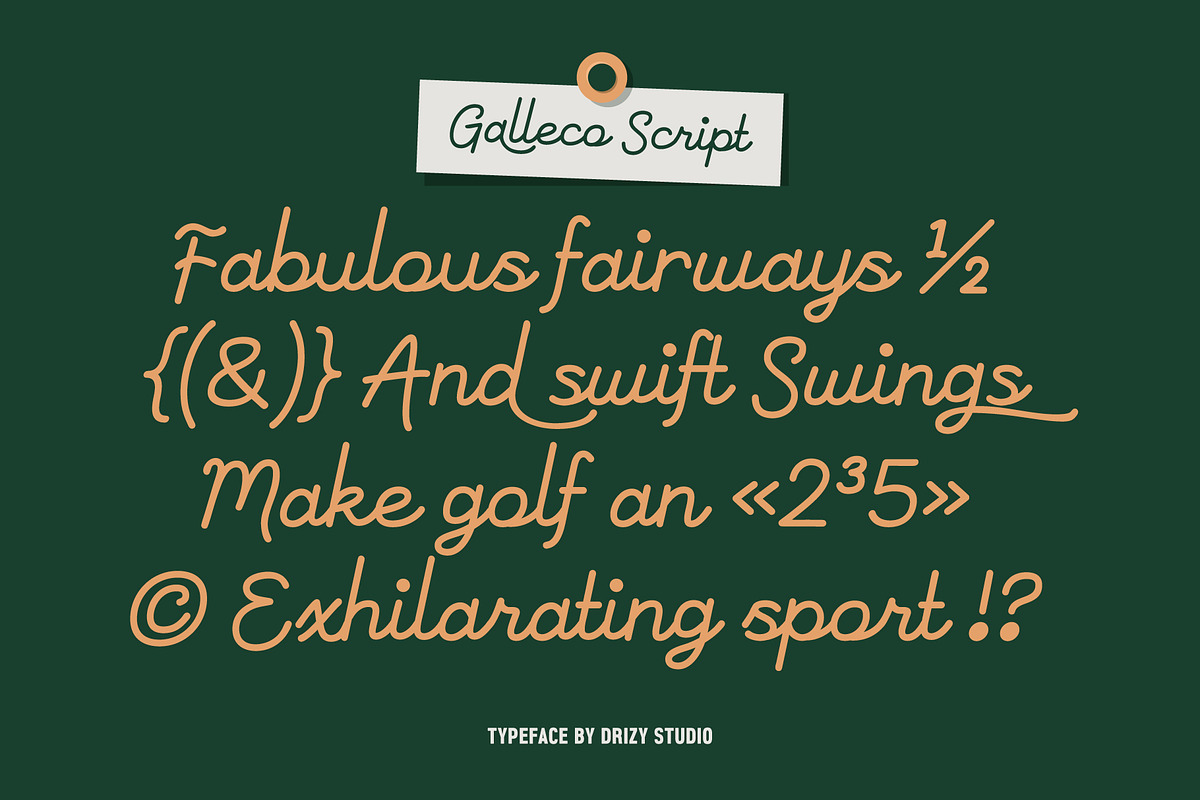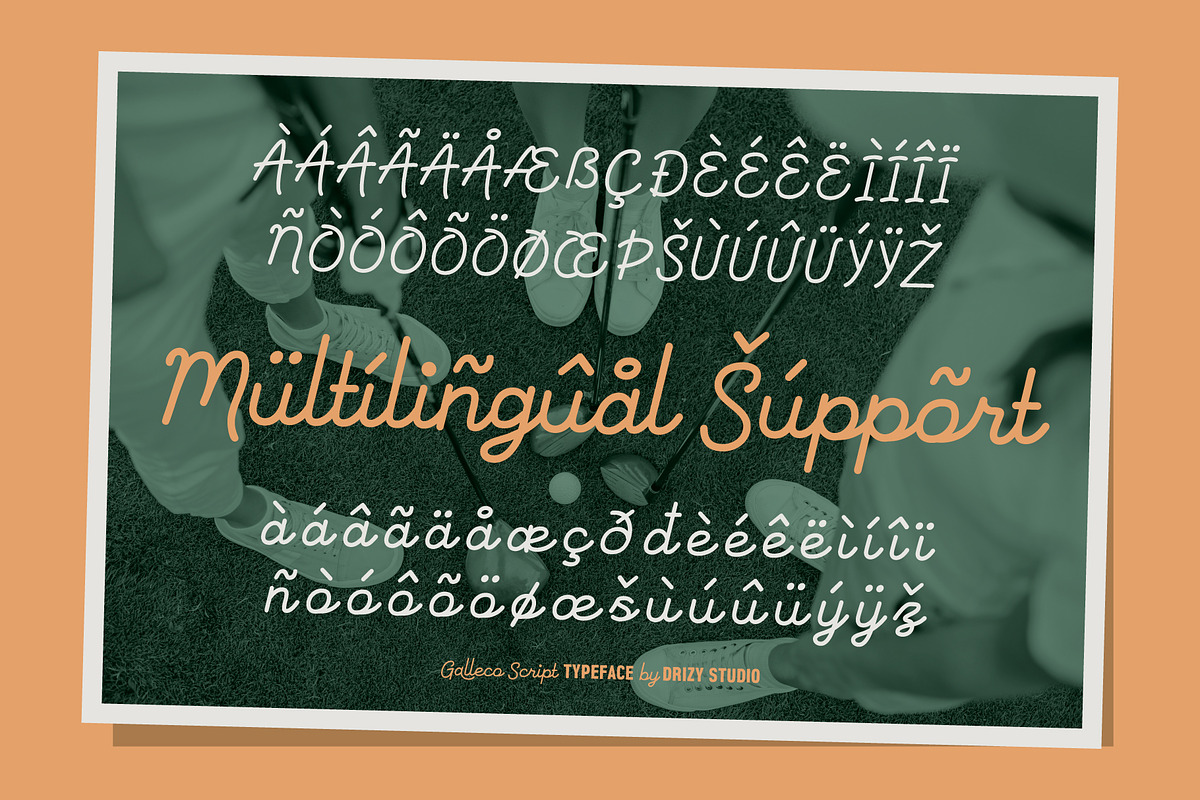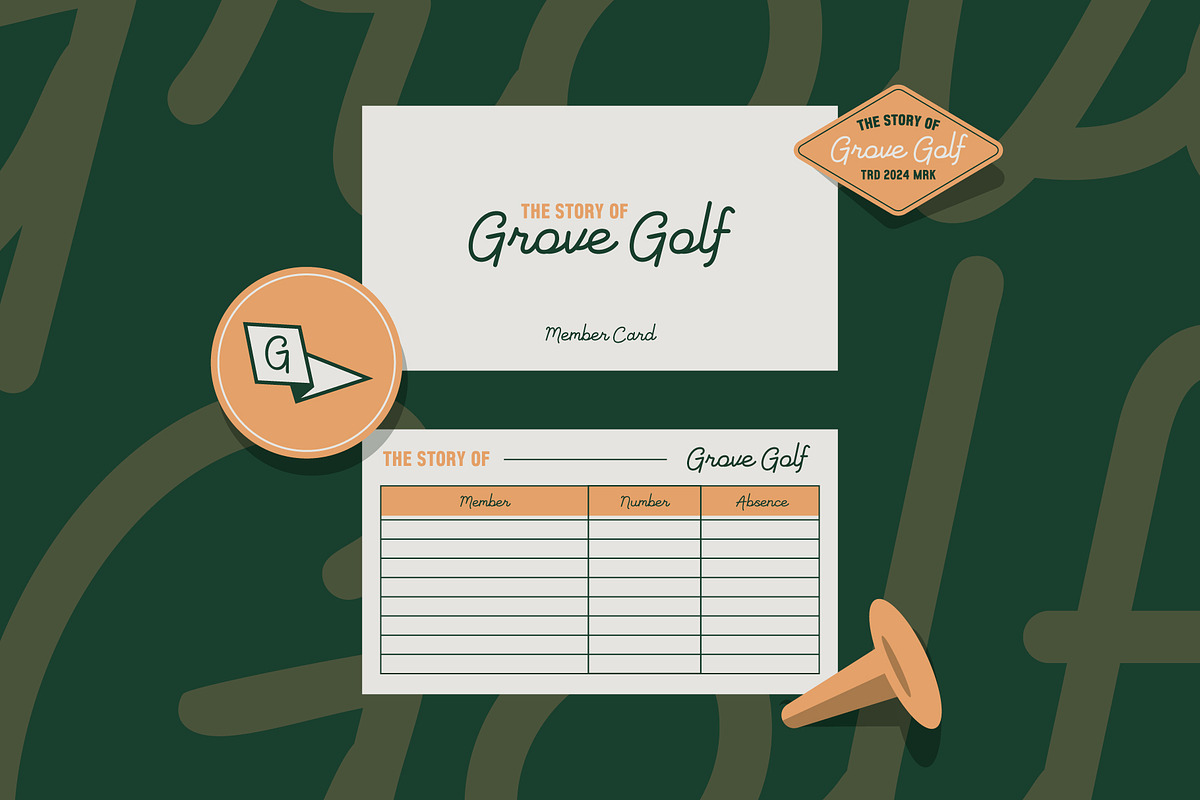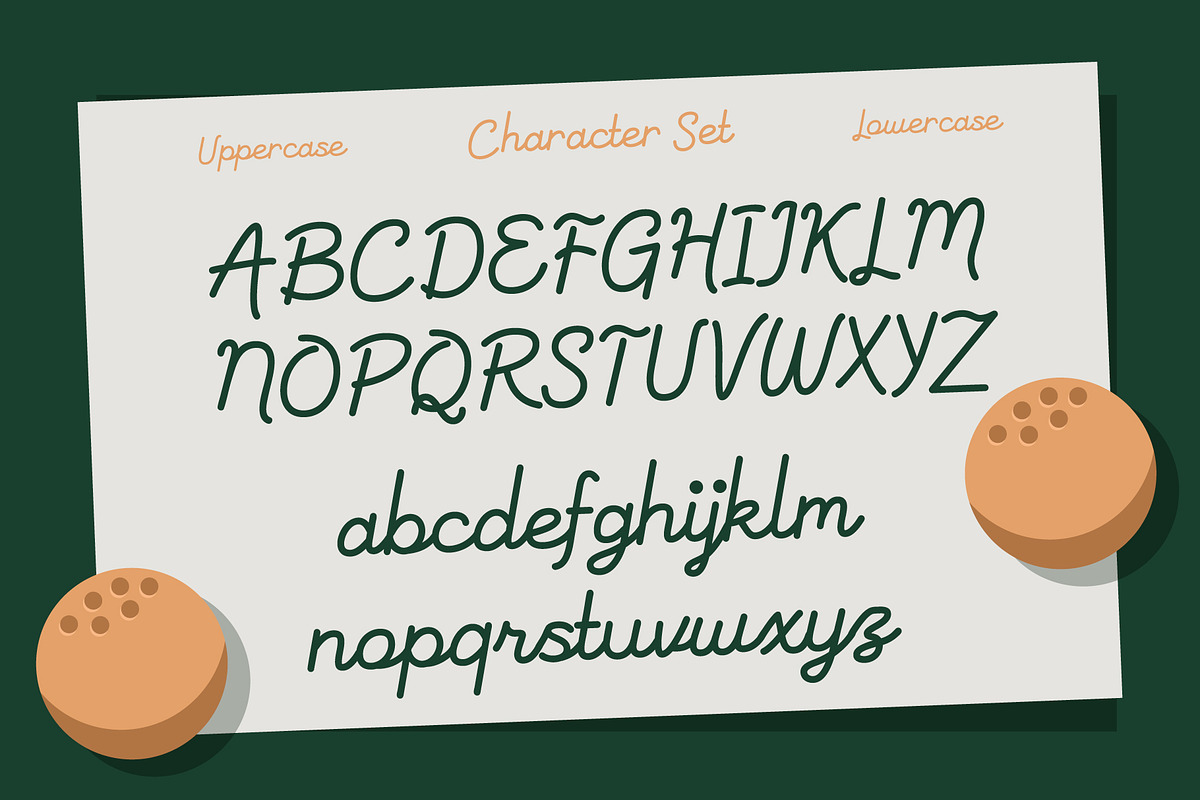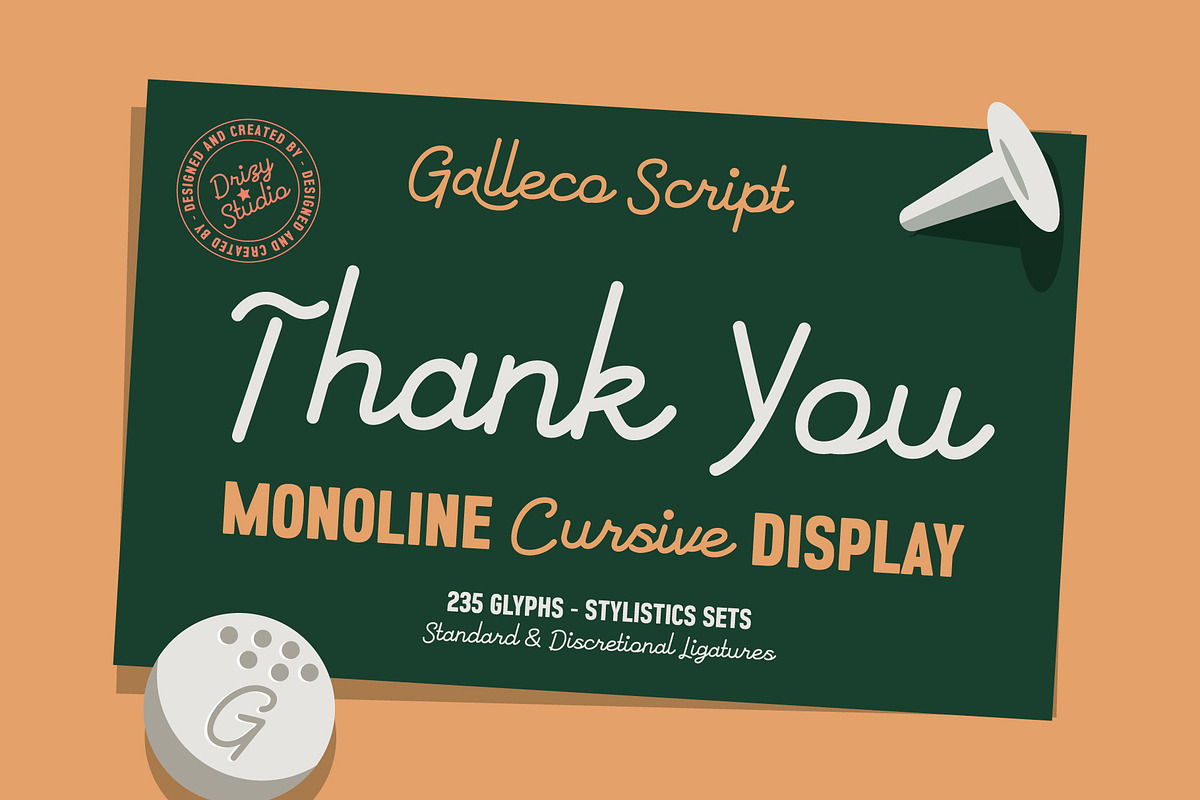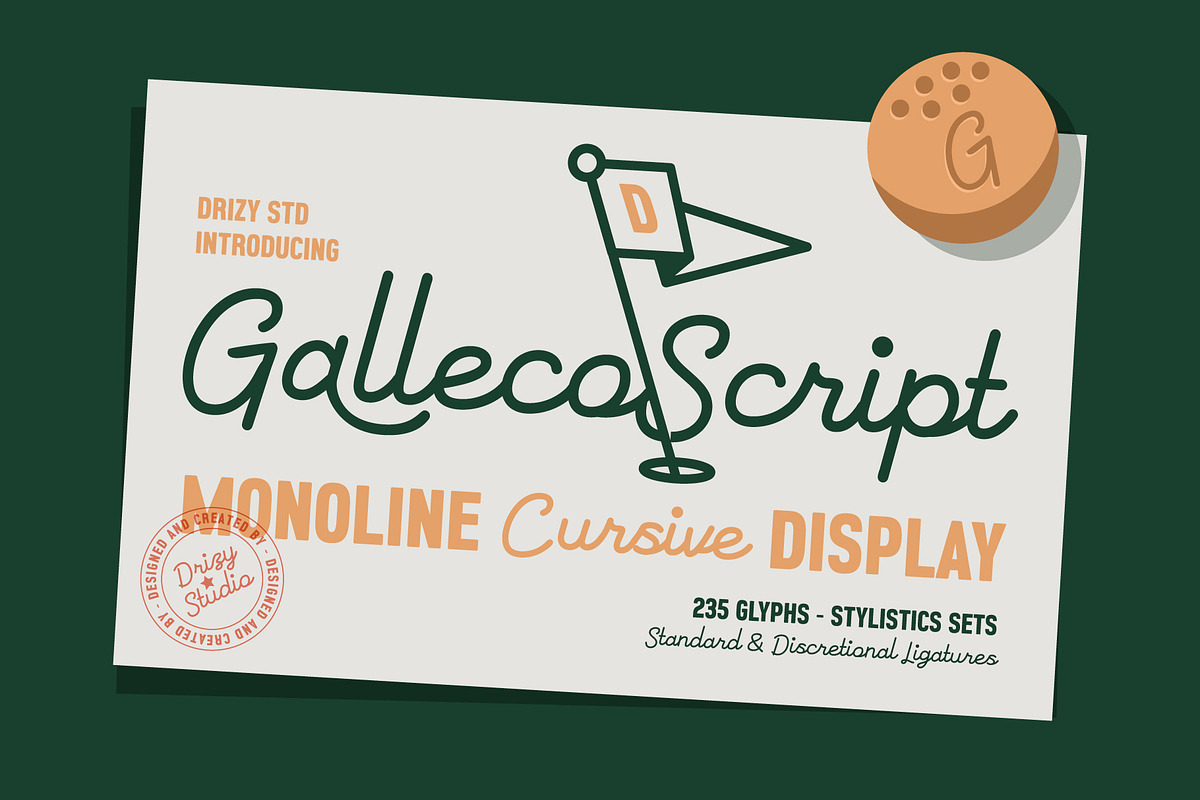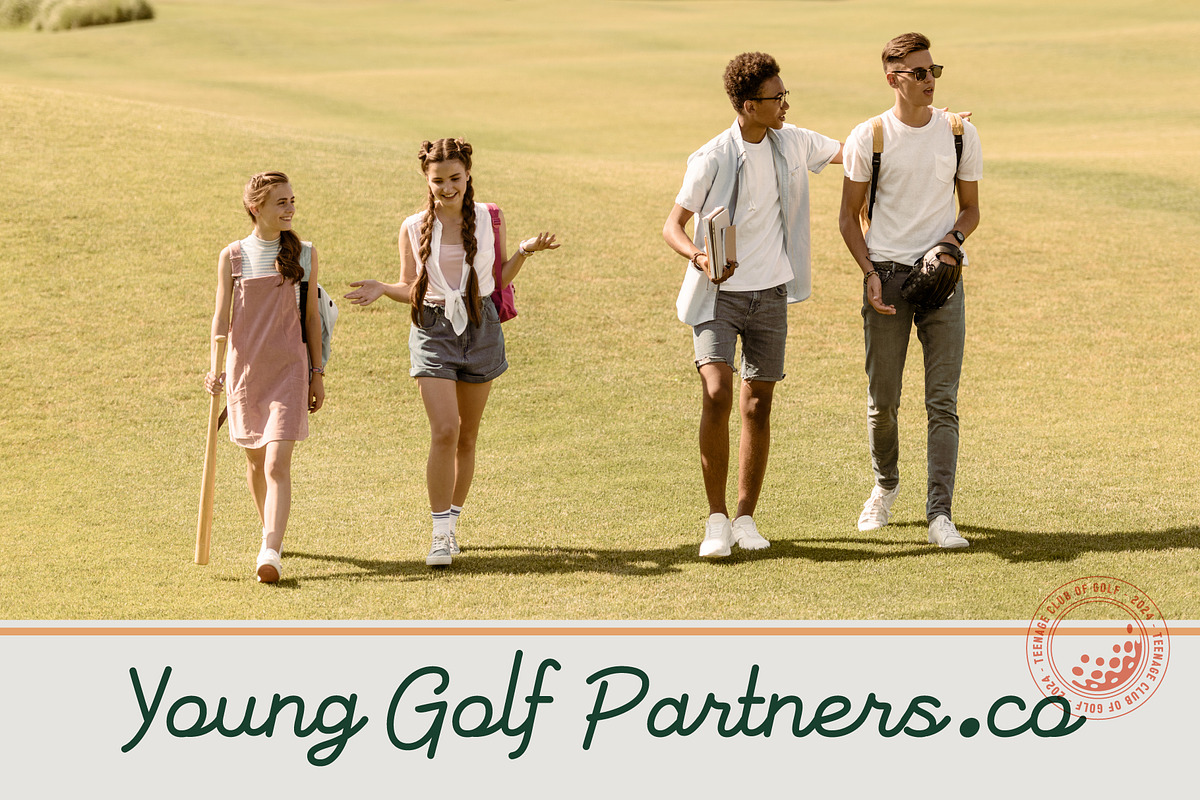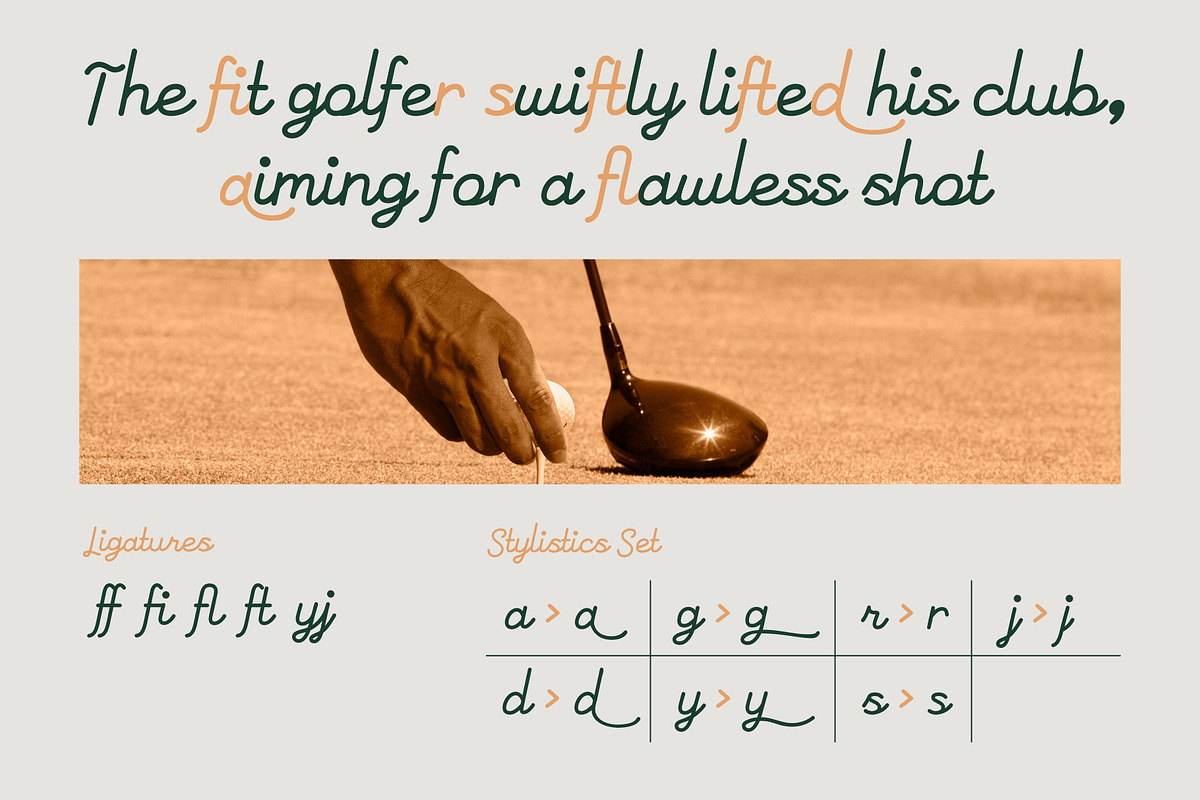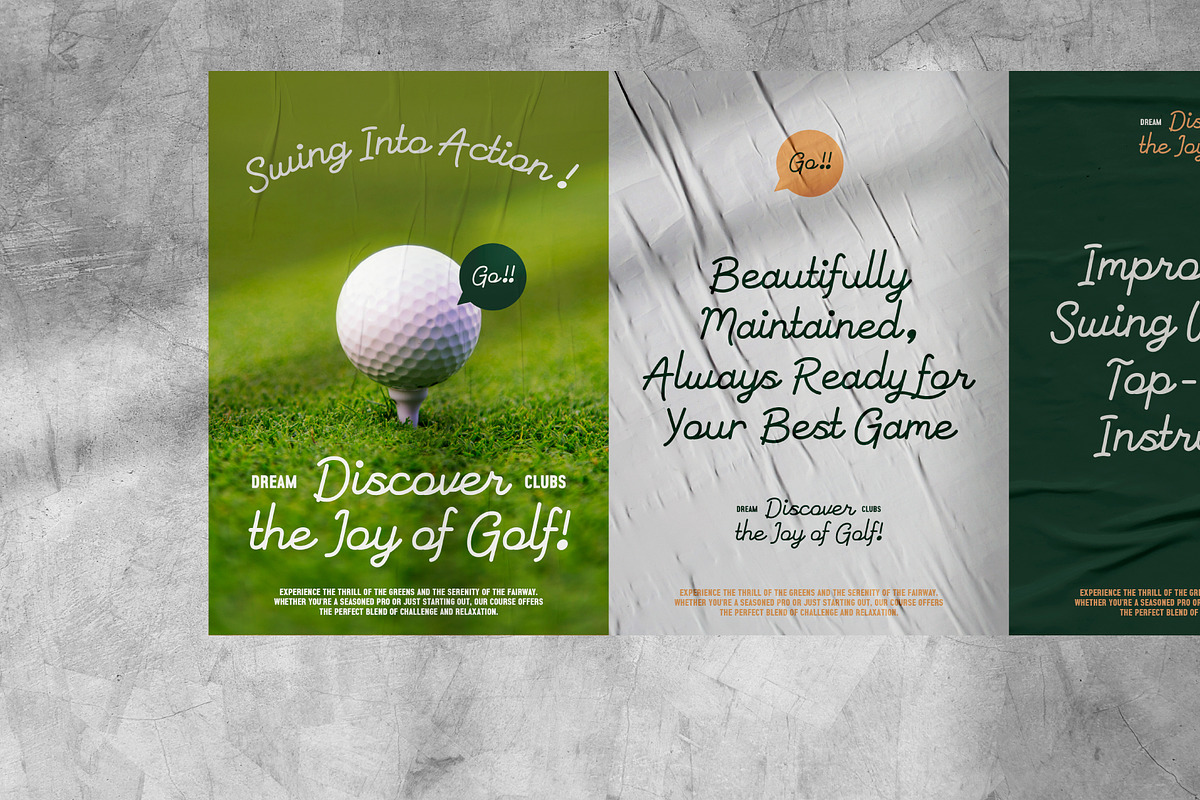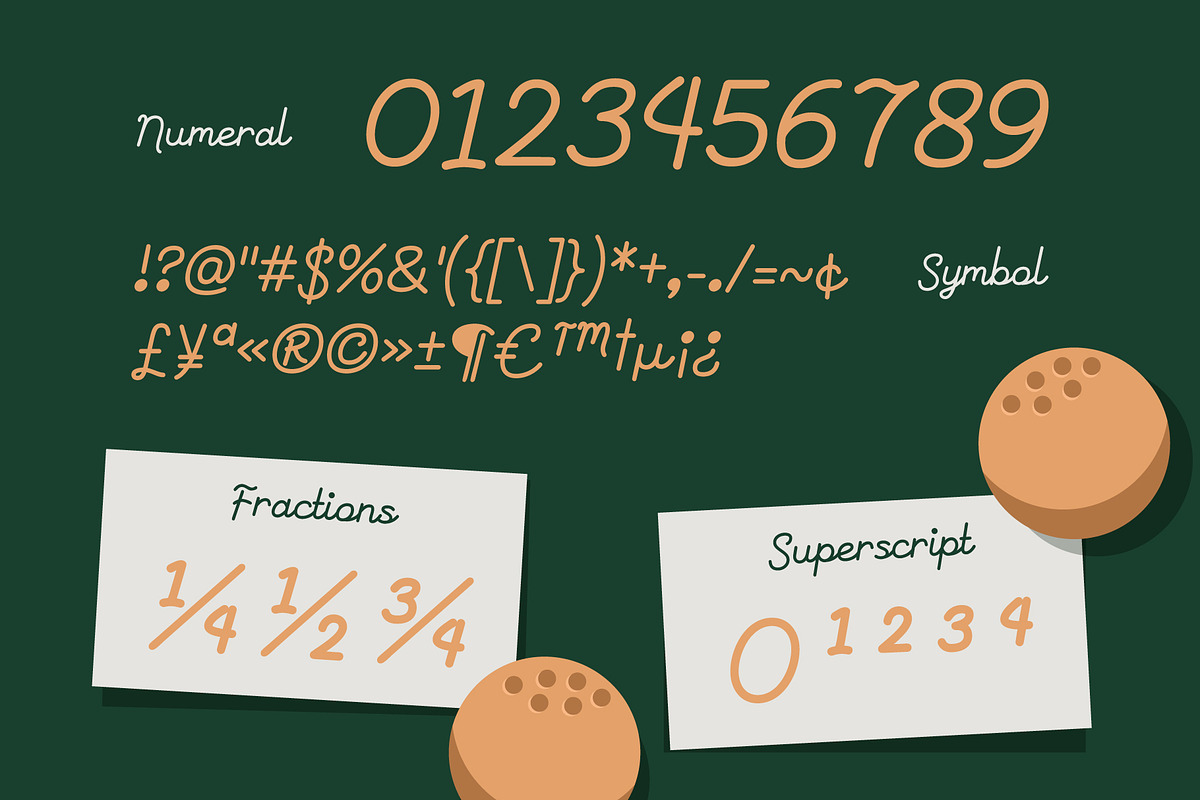
Galleco Script – Monoline Cursive
Galleco Script – Monoline Cursive Display Font
Galleco Script is a stunning addition to the Golf – Elegant Sport (Classic Taste). This exquisite font captures the refined essence of classic sports, combining sophistication with a touch of vintage flair. The Galleco Script features fluid, graceful strokes that mimic the elegance of traditional calligraphy, making it perfect for upscale branding and luxurious design projects. Whether you’re designing a logo, crafting a bespoke invitation, or adding a touch of elegance to a promotional campaign, the Galleco Script is your go-to choice for creating a lasting impression with a classic, sporty edge.
Galleco Script features:
- Character Set (Uppercase & Lowercase)
- Punctuation & Numbers
- Standard & Discretional Ligatures
- Stylistics Sets
Elevate and explore the design possibilities with this Golf – Elegant Sport (Classic Taste) Design Font!